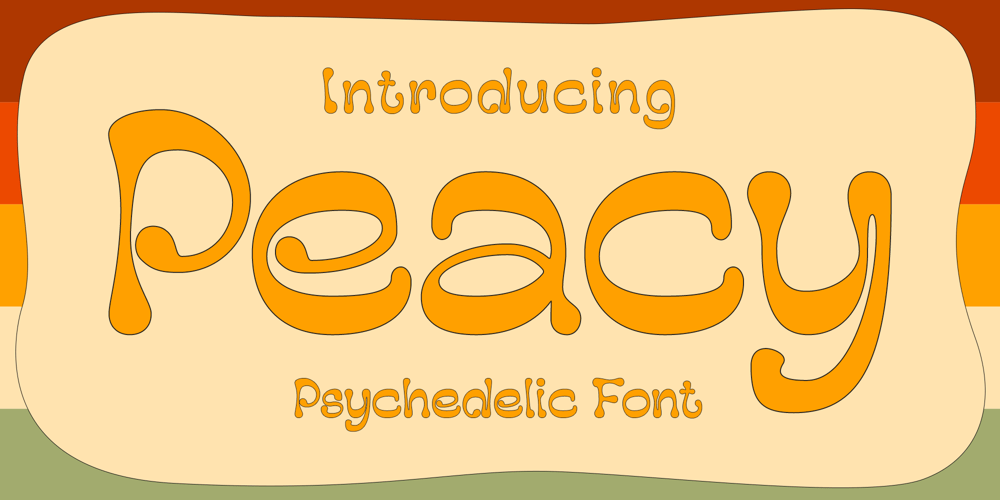
Peacy Font Family was designed by Trio Nazzar Saputra, Wahyu Hadi Yuana and published by Craft Supply Co. Peacy contains 2 styles and family package options. Introducing Peacy – Psychedelic FontPlayful and Vibrant TypographyPeacy Psychedelic Font, the ultimate psychedelic font, radiates fun and cheerfulness with its lively shapes and vibrant colors. Each letter dances with its unique personality, creating a dynamic visual experience.Reggae-Inspired VibesInfused with the spirit of reggae music, Peacy captures freedom and positivity. Its flowing curves and wavy lines mirror the rhythmic melodies and laid-back vibes of reggae culture.